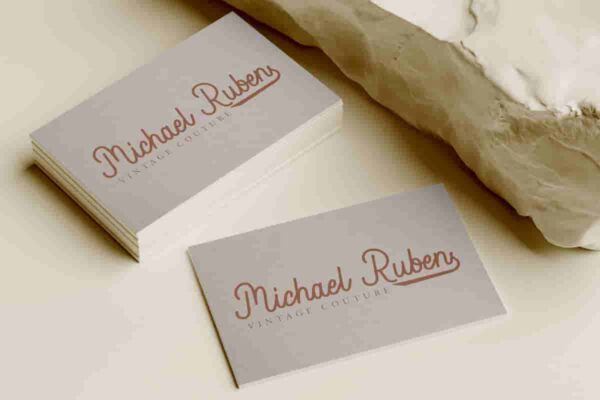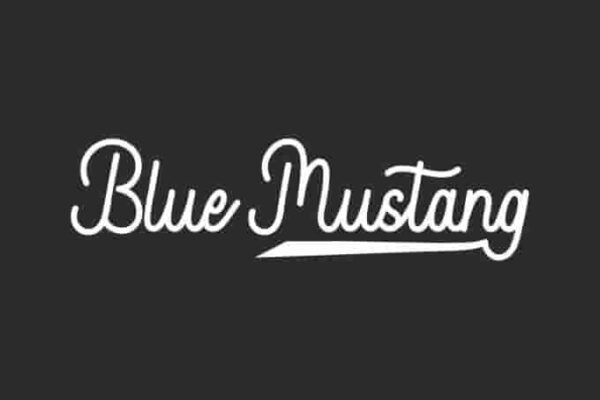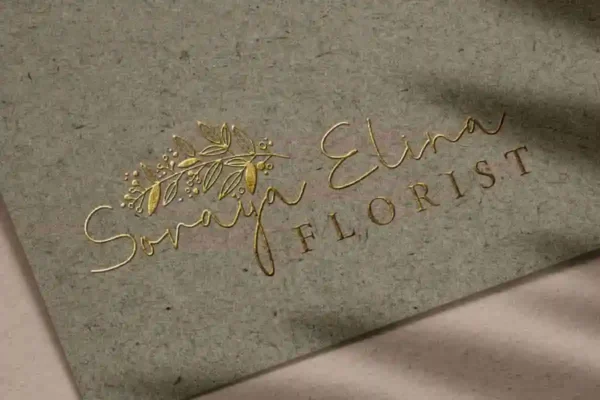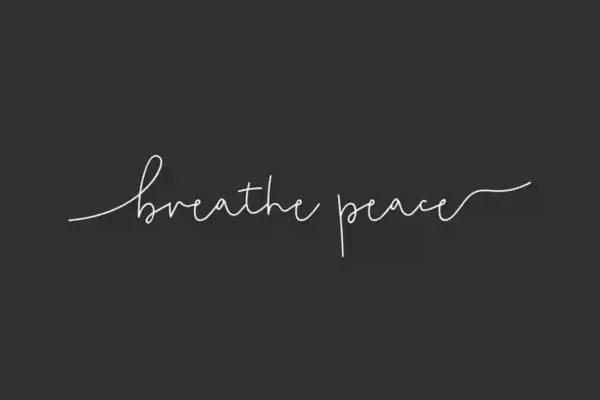
Handwriting
Always There is a beautiful handwriting font, great for children invitation, tittle, book, social media post etc. This font is crafted carefully in every its single letter so we can make sure it has special looking, exclusive and This one should make your designs instantly standout and stunning ! Try…
Bartley Green Font is a beautiful handwriting font, great for wedding, branding tittle, book, social media post etc. This font is crafted carefully in every its single letter so we can make sure it has special looking, exclusive and This one should make your designs instantly standout and stunning !…
Blue Mustang Font is a monoline handwriting brush look. Blue Mustang will be awesome for business card, envelope, invitation, product packaging, stationery, tittle etc. This font is crafted carefully in every its single letter so it is meant to emulate natural brush lettering with perfect for head-turning statements and eye-catching…
Brickouts Font is a display font with graffiti display font inspired by graffiti art from the street. This font is crafted carefully in every its single letter so we can make sure it has special looking, exclusive and This one should make your designs instantly standout and jaw-dropping! Try out…
Brondown Various Font is a unique handwriting display font. This font is crafted carefully in every its single letter so we can make sure it has special looking, exclusive and This one should make your designs instantly standout and jaw-dropping! Try out Brondown Various Font Demo font (Some Characters are not…
Butter Croissant Font is a lovely handwriting font with signature style, and a unique name inspired by Croissant. Made with a blend of thick and thin lines that connect each other to create a new freshness. This one would make your designs instantly professional and stand out! Butter Croissant Font…
Chicken Nuggets Font is a handwriting font inspired from special meals. The font comes with simple shape that has cute stylish, which can help make your designs project easier because it has its own uniqueness. Chicken Nuggets Font includes full set of Uppercase and Lowercase Basic Characters, Numerals and Punctuation.…
Choco Mellow Font is a playful font duo that complements each other in two different styles : cute sans serif display and sweet handwriting script. It will be suitable for any industries such as, advertisement, animation, bakery, cake, cooking, craft, groceries, homeware, publishing, snack brand, and more! Choco Mellow Font has…
Clover Honey Font is a lovely calligraphy font with beautiful blend of modern and classic styles. This font is crafted carefully in every single letter so we can make sure it has great looking and well work together in harmony. This one would make your designs instantly professional and stunning!…
Corona Real Font is a new font duo from Vintype Studio. This is a combination of an elegant sans serif font & beauty handwritten script font based on the expression of casual handwriting font. Corona Real Font with its perfect Pair Font Duo will work perfectly for : fashion, e-commerce brands,…
Dream Party Font is a handwriting script font with beautiful and classic typography style. This font is crafted carefully in every its single letter so we can make sure it has great looking. Inspired by neat and skillful ancient handwriting. Carefully designed to work together in beauty and this one…